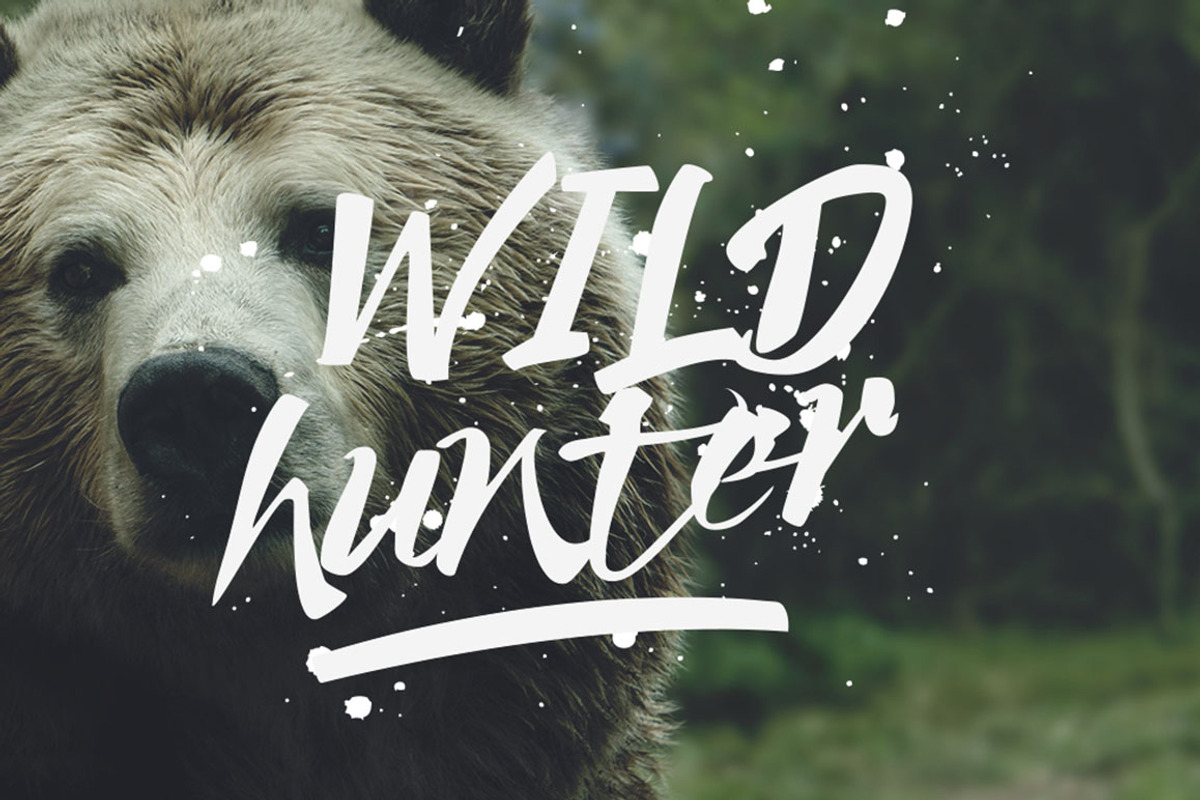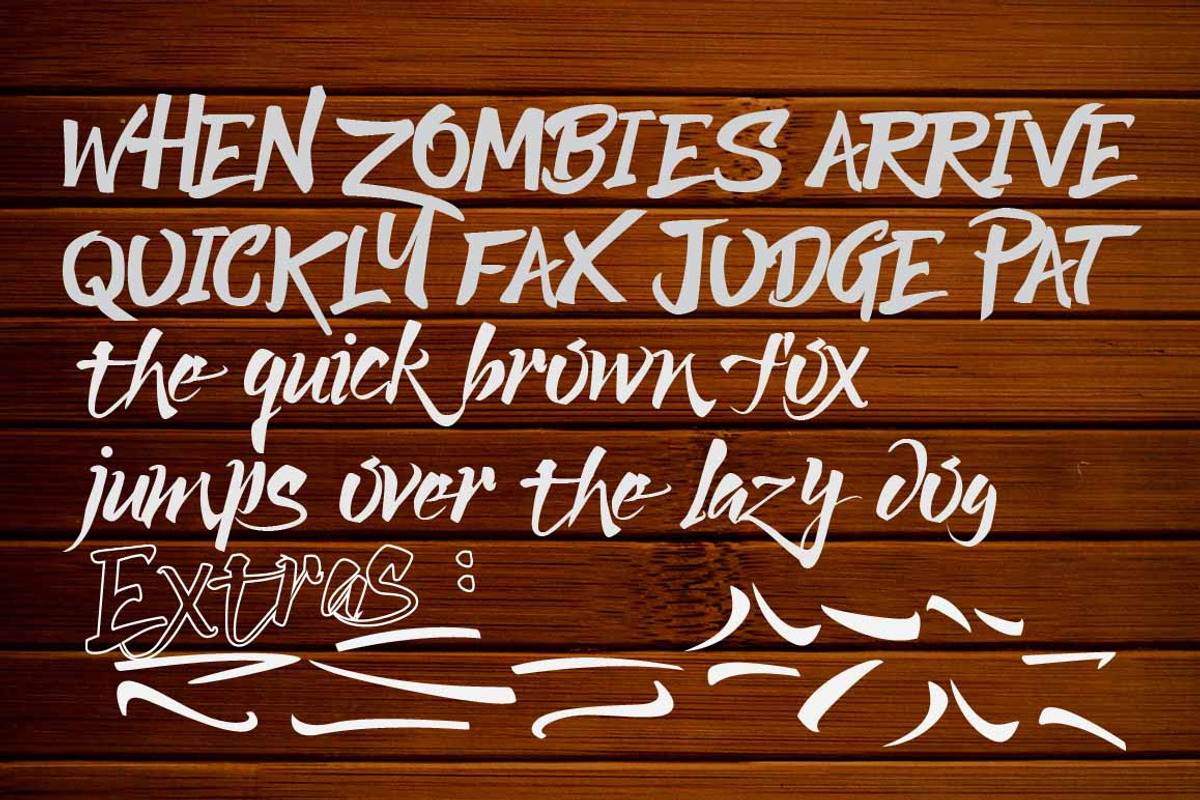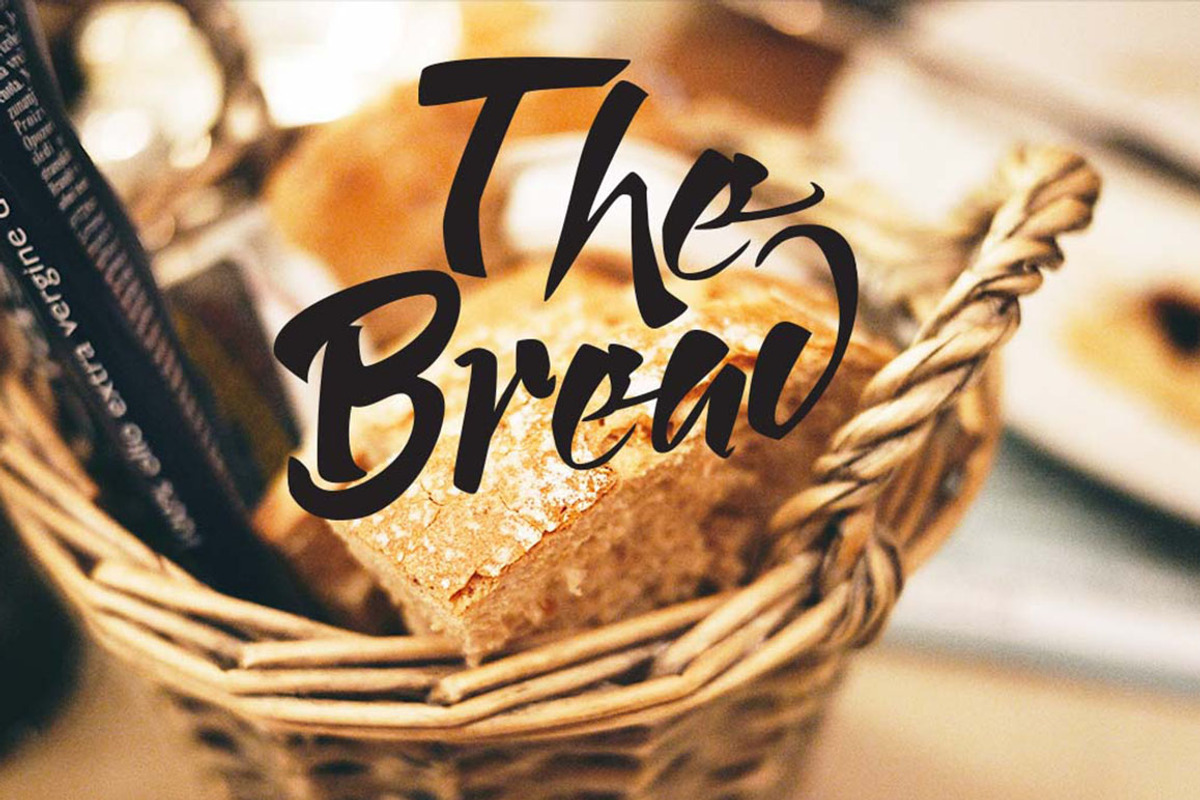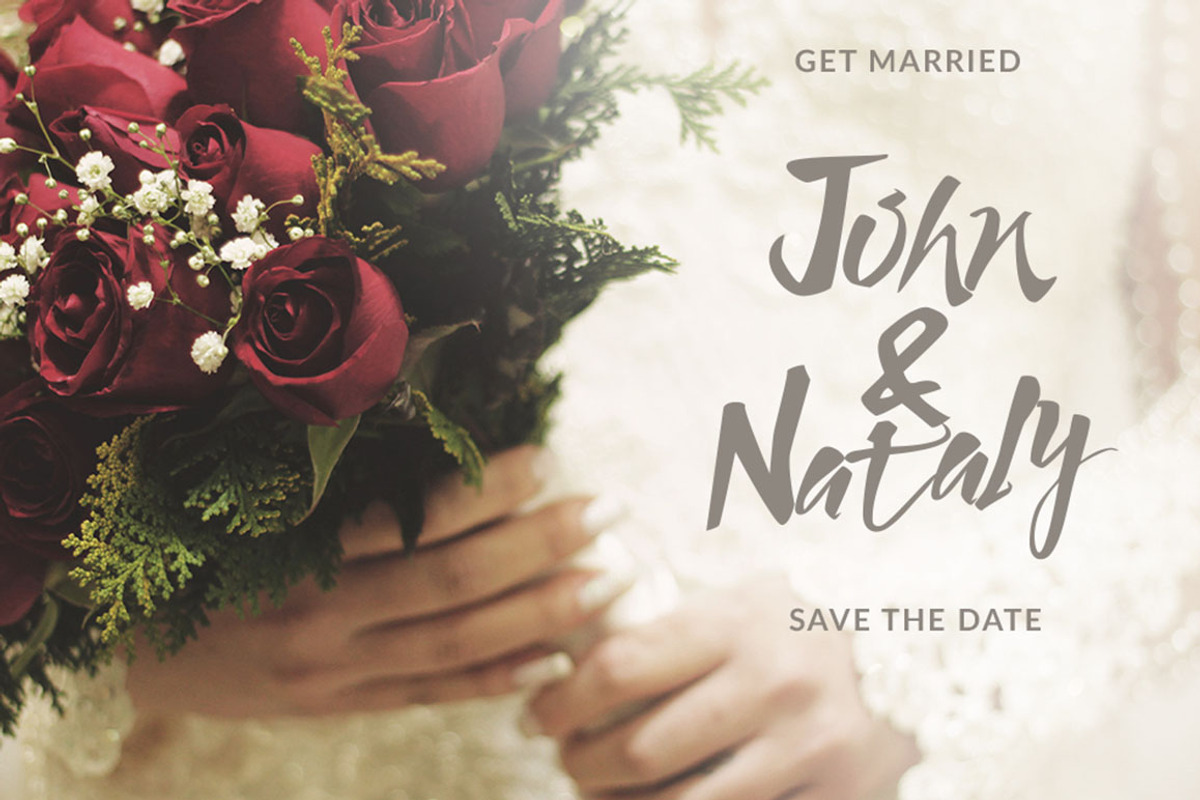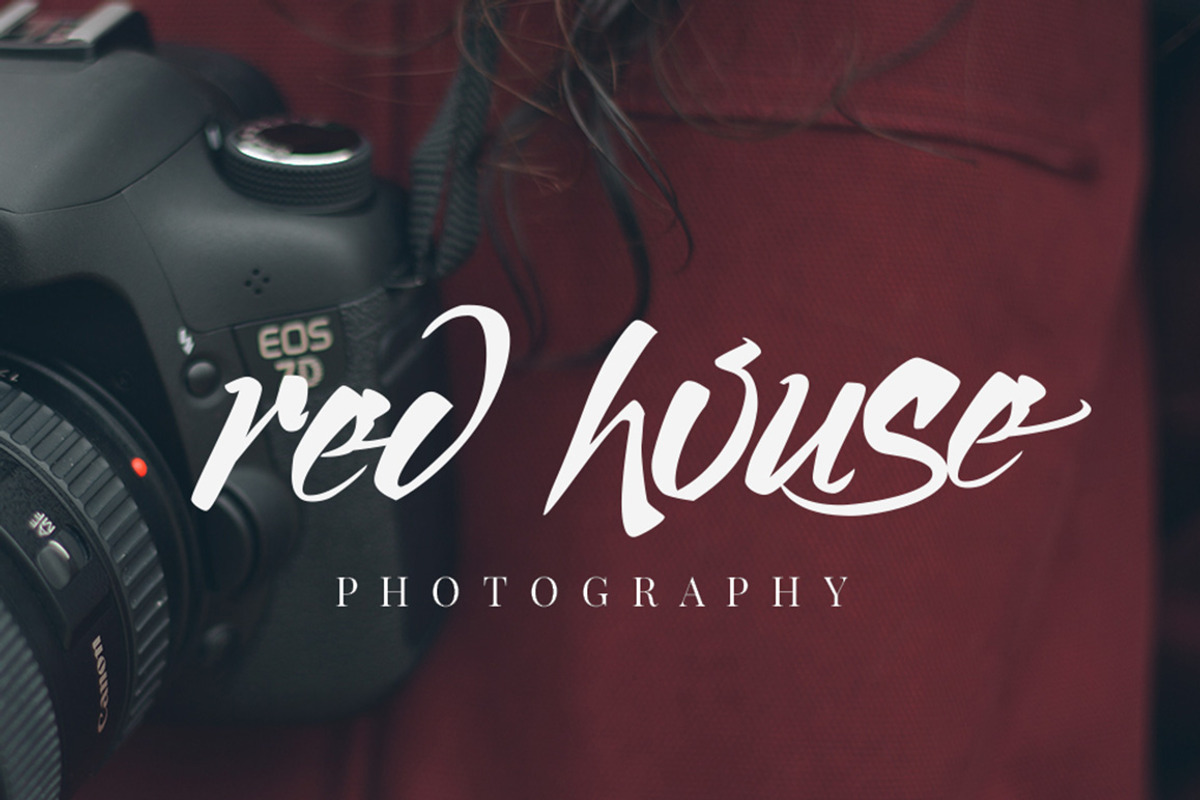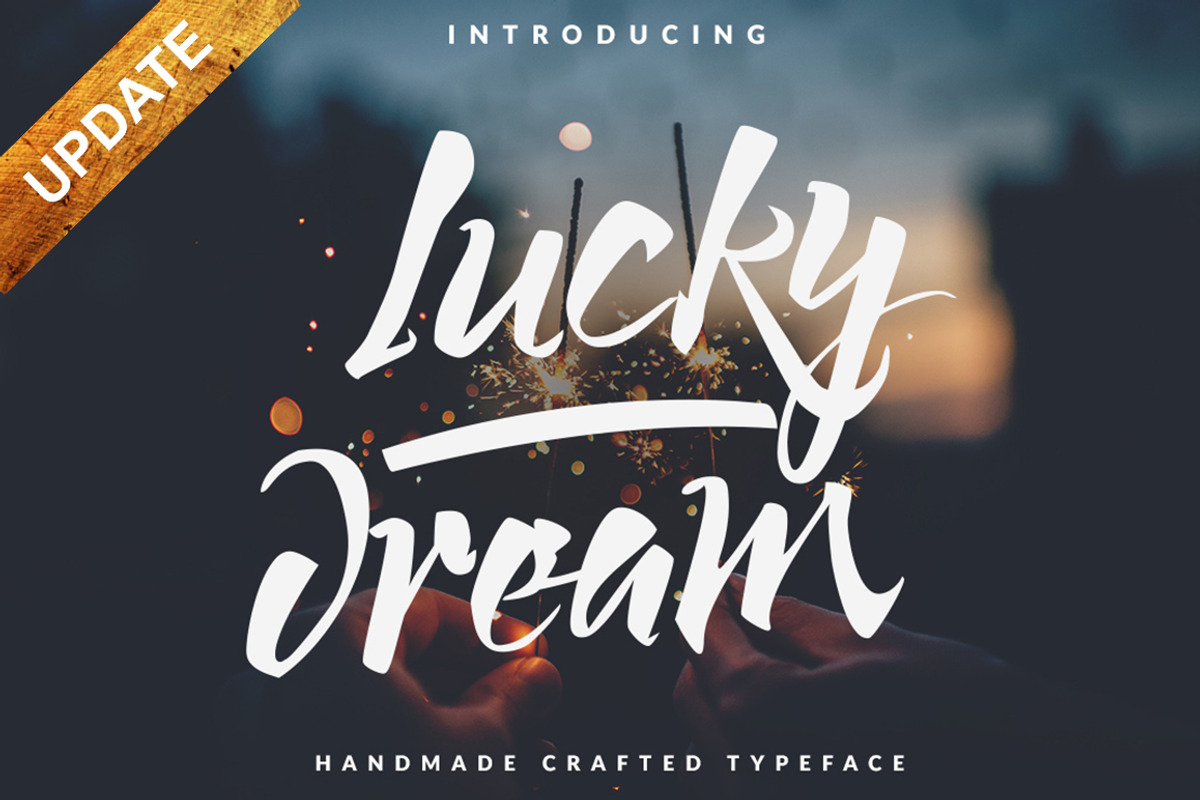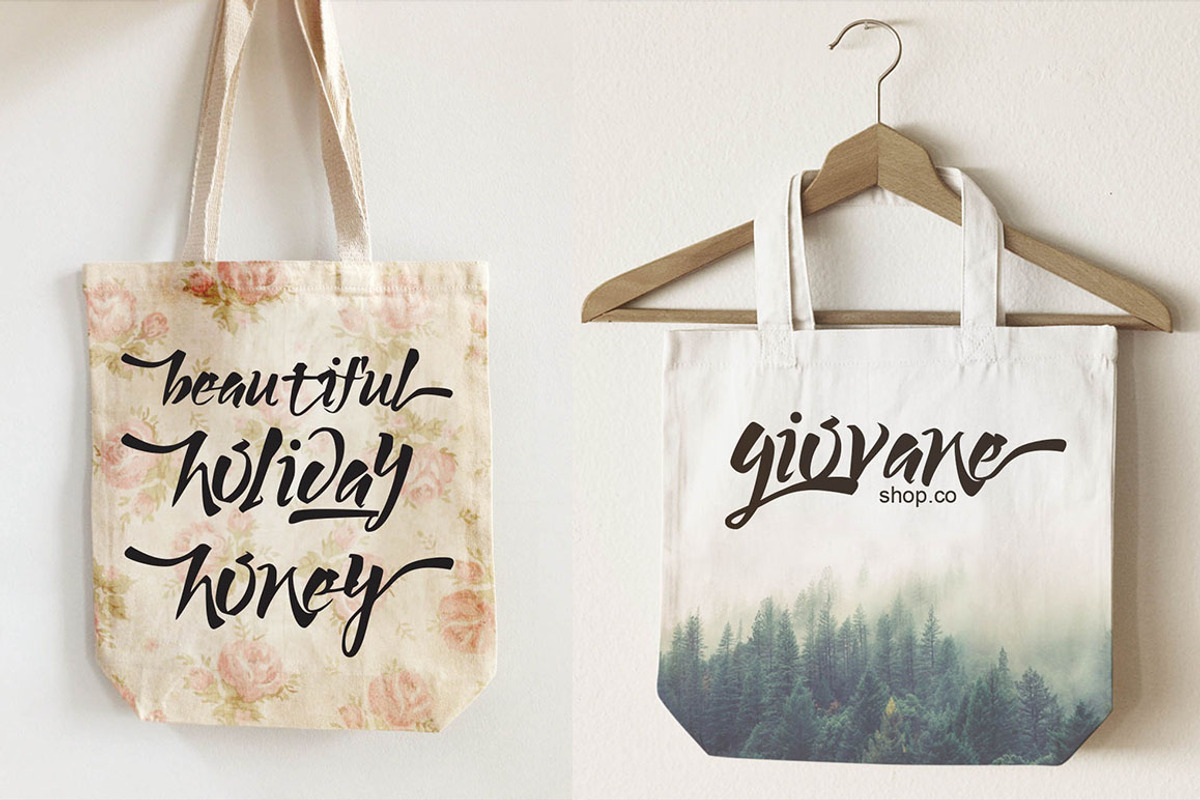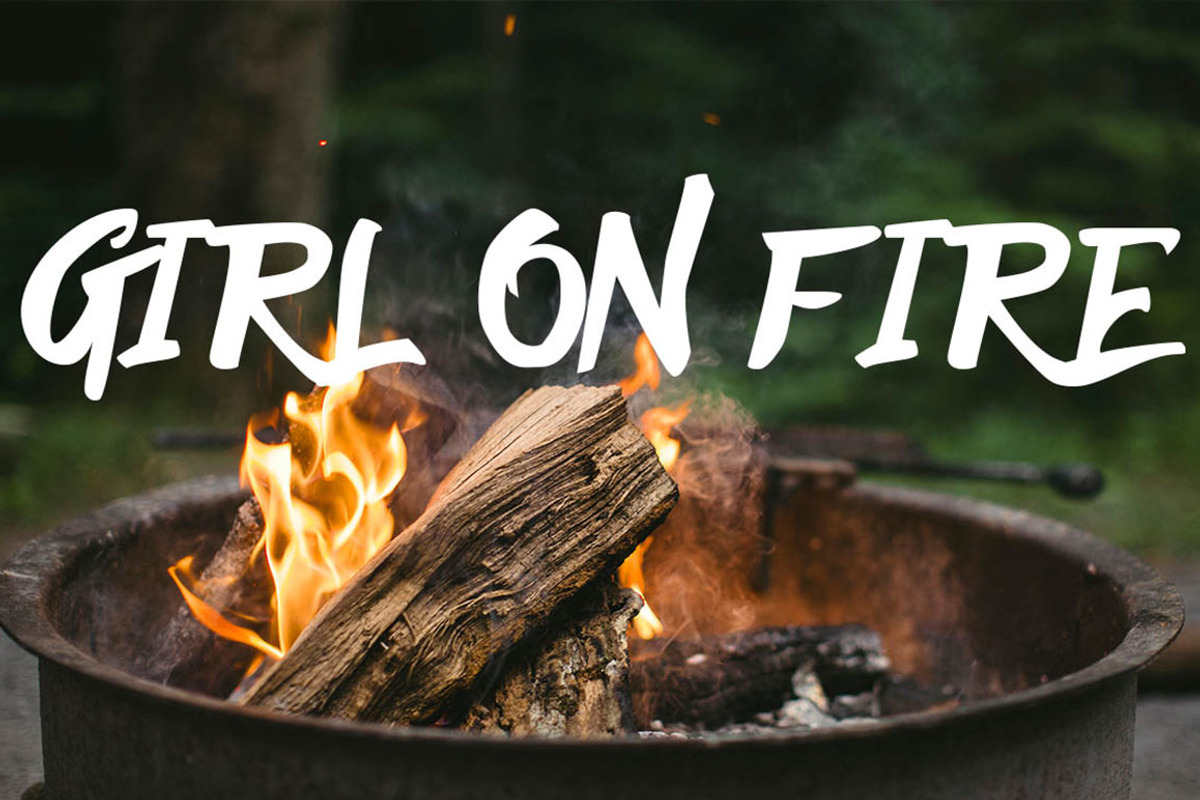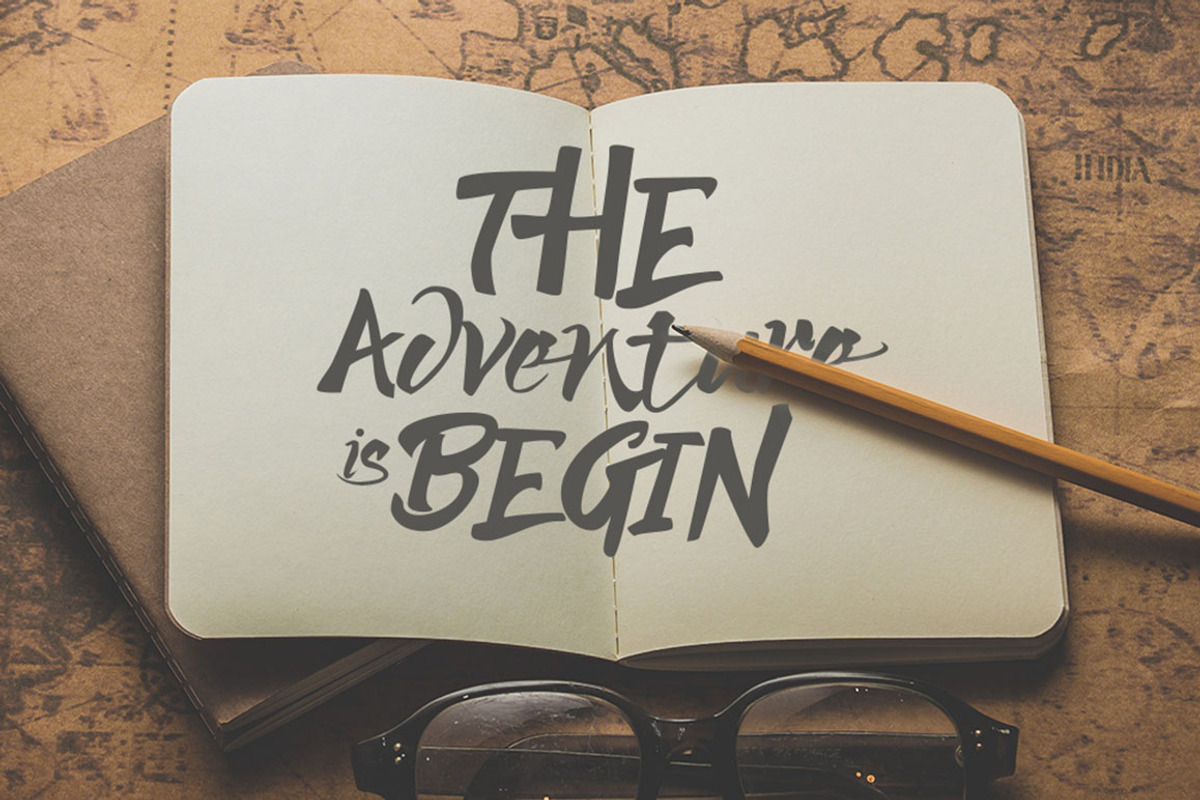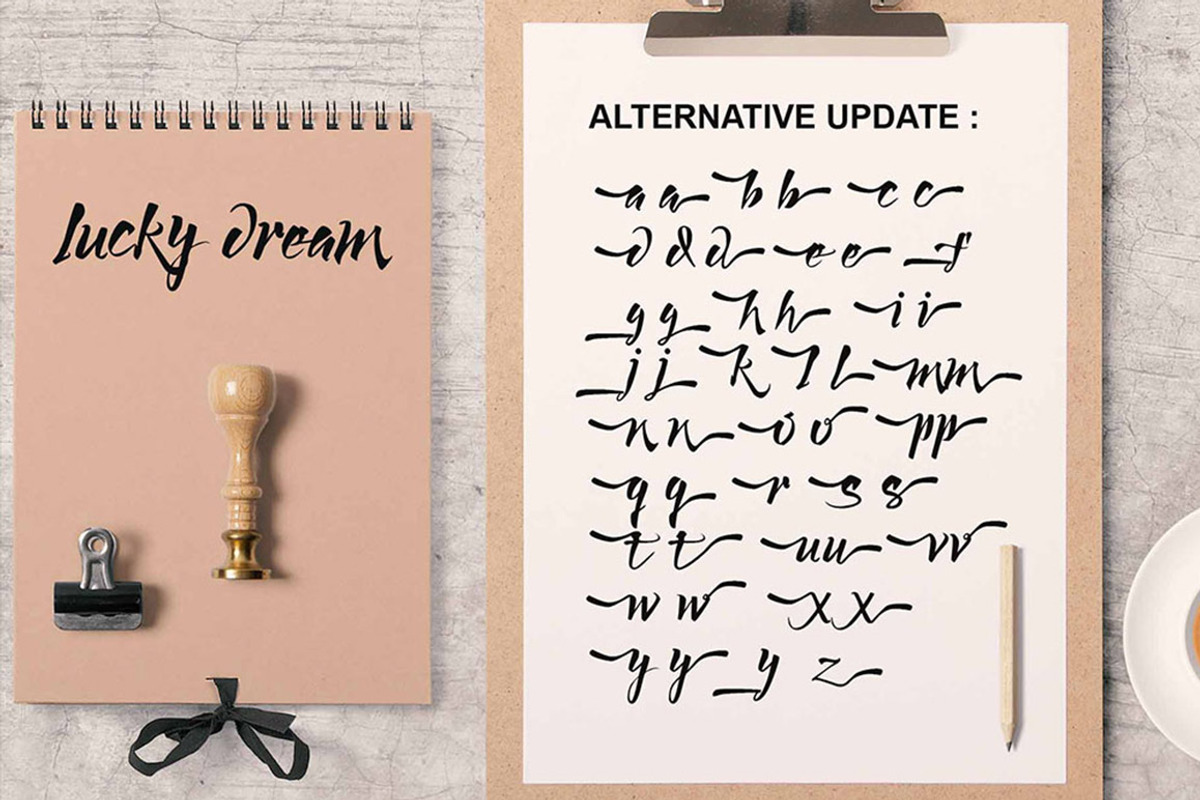
Lucky Dream Stylish Font
INTRODUCING
Lucky Dream is a handmade crafted typeface Styles, modern and lifestyle, which was created to meet the needs of your next design project. Lucky Dream, Can used for various purposes. such as the title, signature, logo, correspondence, wedding invitations, letterhead, signage, labels, newsletters, posters, badges, etc